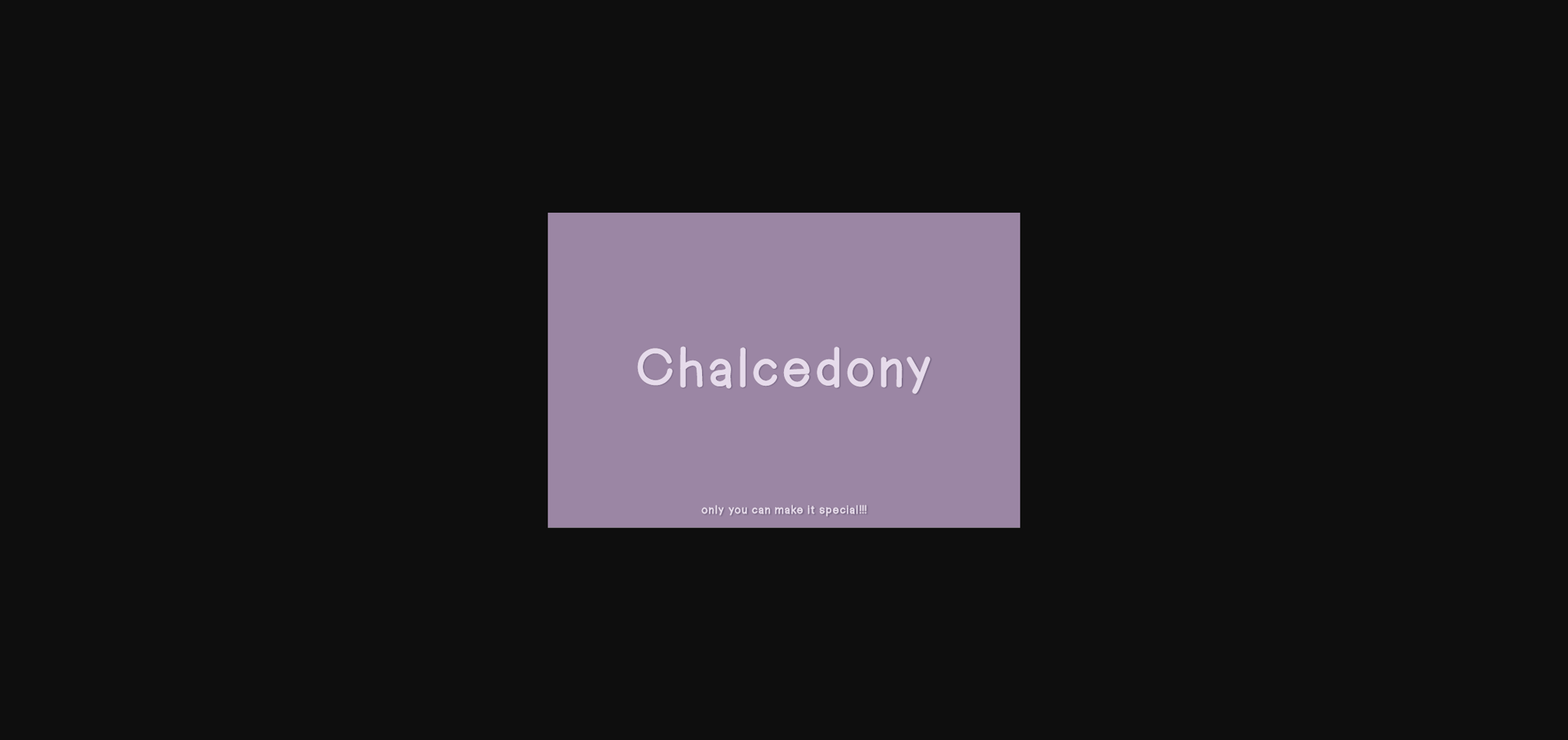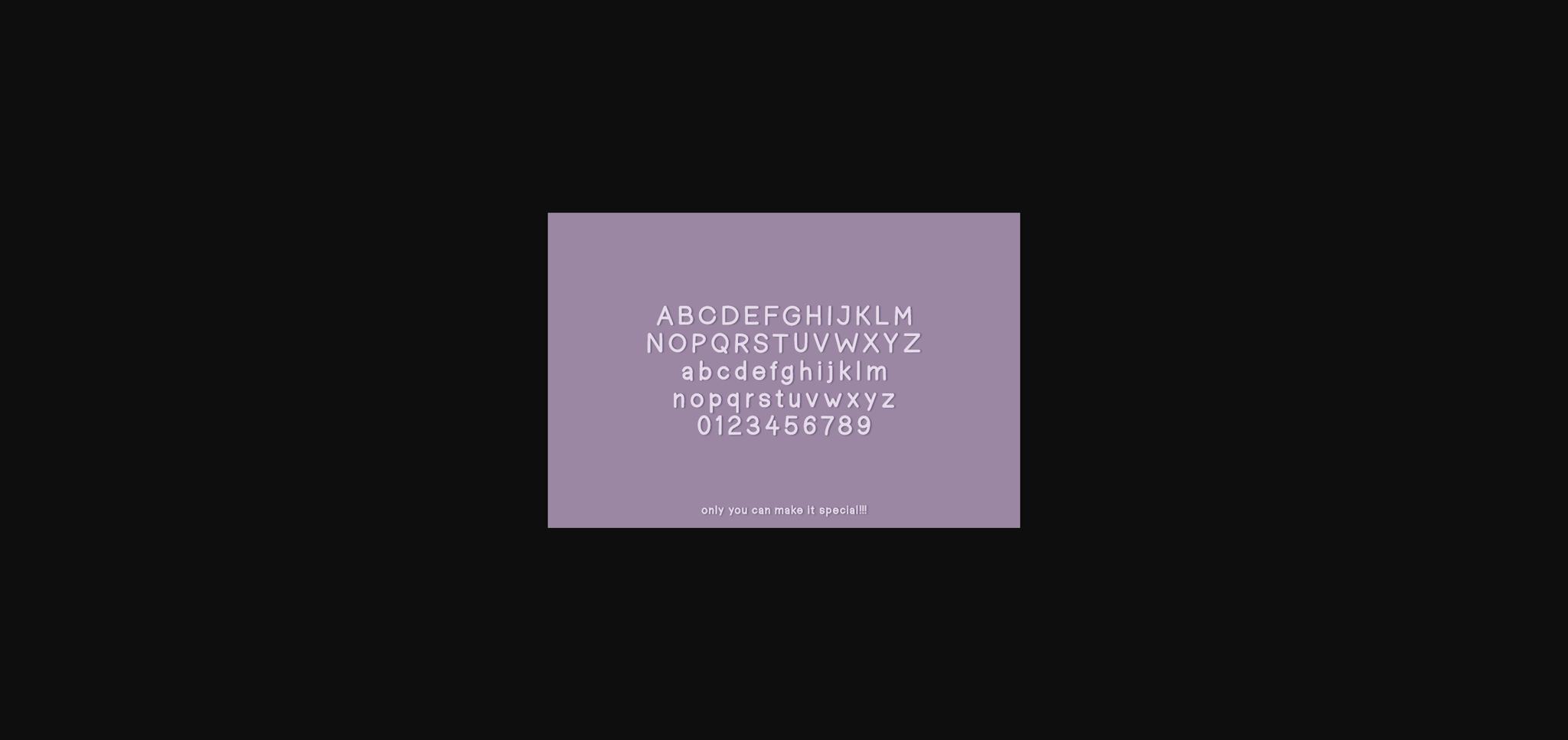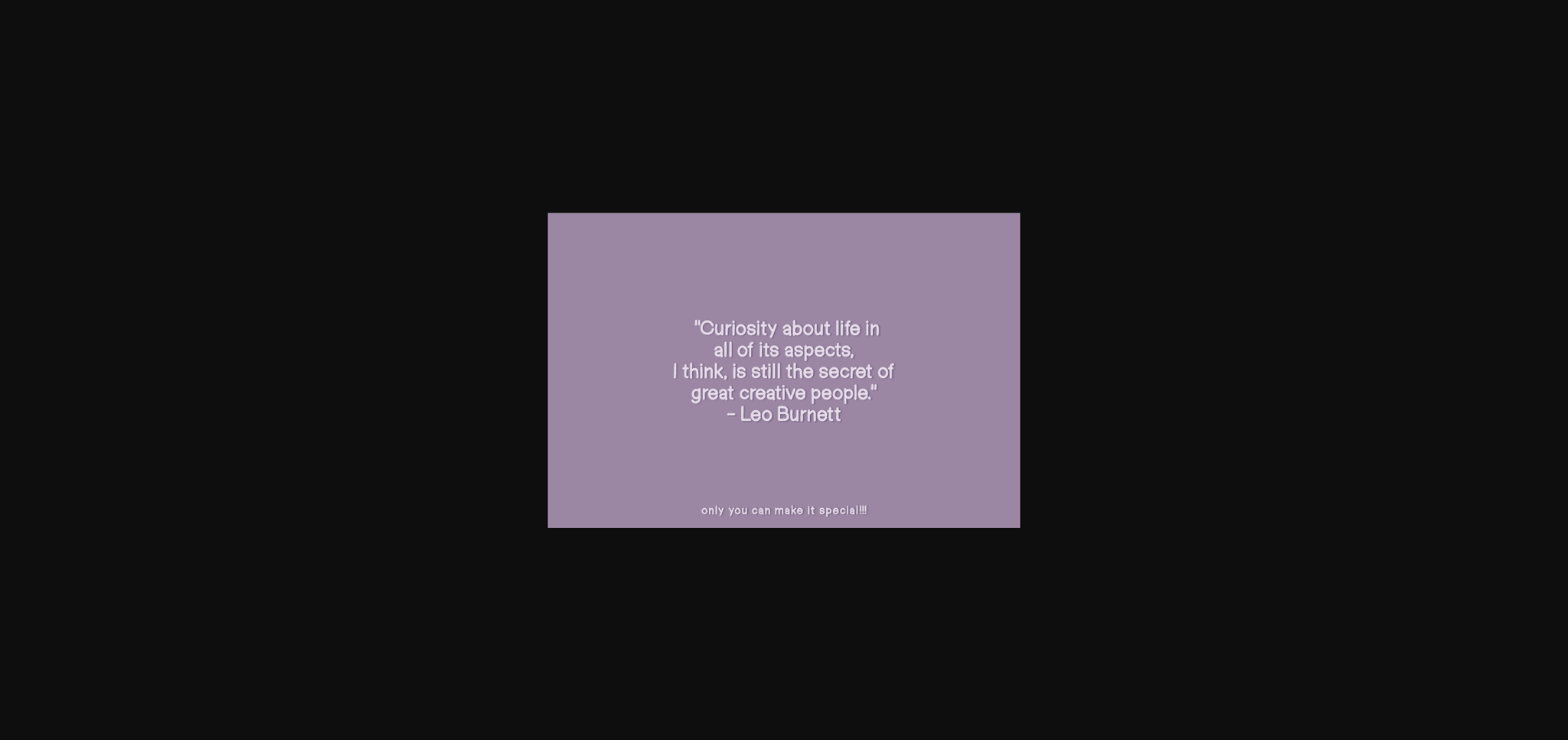
About Chalcedony Font
Chalcedony is a natural sans serif font made without changing a single node in each character’s indentation – this makes this font very interesting and unique. Perfect for quotes, notes, tees, and any product design.